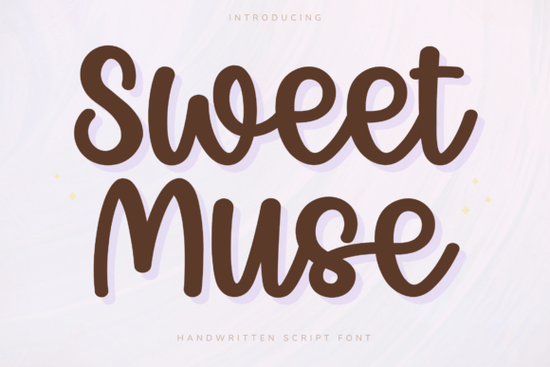
If you're looking for a handwritten script font that feels both personal and polished, Sweet Muse Font might be exactly what your next project needs. With its bold rounded strokes and smooth, flowing curves, it brings a soft, feminine charm without sacrificing readability something many script fonts struggle to balance. Whether you’re designing planner stickers, branding a small shop, or creating Cricut vinyl decals, Sweet Muse adds warmth and personality in a way that still looks clean and intentional.
What makes Sweet Muse work so well for everyday creative projects?
Unlike overly ornate scripts that can feel dated or hard to read at small sizes, Sweet Muse keeps things approachable. Its letterforms are connected naturally, mimicking real handwriting, but with consistent spacing and clear character shapes. That means your journal headers, social media quotes, or product labels stay legible even when printed tiny on a sticker or viewed quickly on a phone screen.
It’s especially popular among crafters who use cutting machines like Cricut or Silhouette because the generous stroke width holds up well when cut from vinyl or cardstock. The font also includes contextual alternates and ligatures (depending on your software), which help avoid repetitive letter pairings and give your text a more organic, hand-lettered look.
How does it compare to other friendly script fonts?
If you’ve browsed Creative Fabrica’s script collection, you’ve probably seen options like Avonia, which leans more calligraphic with dramatic swashes, or Jumping Summer, which has a bouncy, casual energy perfect for kids’ designs. Swag Teacher offers a classroom-friendly vibe with chunky, cheerful letters, while Bigboy goes bold and graphic almost like brush lettering with attitude.
Sweet Muse sits comfortably in the middle: not too fancy, not too plain. It’s the kind of font you can use for a wedding invitation one day and a coffee shop loyalty card the next. That versatility is why it’s become a go-to for print-on-demand sellers and small business owners who need one reliable script that works across multiple products.
Where should you use Sweet Muse Font?
This font shines in projects where warmth and approachability matter most. Think:
- Planner and journal accessories – cover titles, dividers, habit trackers
- Sticker sheets – especially motivational quotes or decorative elements
- Branding for lifestyle businesses – bakeries, boutiques, wellness coaches
- Packaging labels – handmade soaps, candles, tea blends
- Social media graphics – Instagram quote posts, Pinterest pins, Reels overlays
Because it’s highly readable even at modest sizes, it also works well for short paragraphs or captions something many decorative scripts can’t claim. Just avoid using it for long blocks of body text; save it for headlines, names, or accent phrases where its personality can shine.
Is it beginner-friendly for non-designers?
Absolutely. You don’t need advanced design skills to get great results with Sweet Muse. Most modern design tools (like Canva, Adobe Express, or Cricut Design Space) let you simply select the font and start typing. The natural flow of the letters does most of the work for you.
For best results, pair it with a simple sans-serif font like Montserrat or Lato for contrast. This keeps your layout balanced Sweet Muse provides the charm, while the supporting font handles clarity.
If you’re creating anything that benefits from a gentle, human touch without looking messy or amateurish Sweet Muse is worth adding to your toolkit. It’s the kind of font that quietly makes your work feel more thoughtful, whether you’re selling it or just making something for yourself.